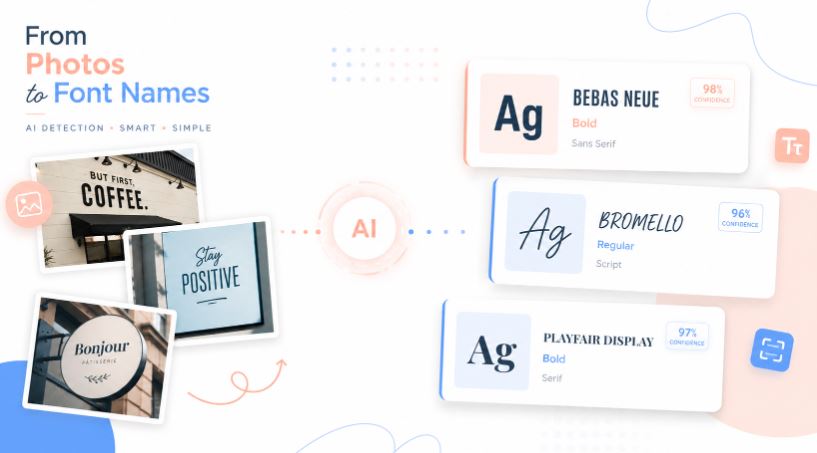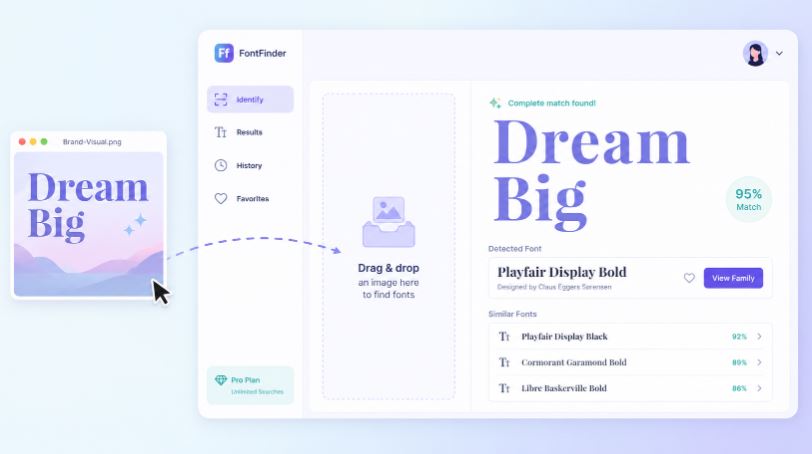
Find a Font With a Picture: The Smarter Way to Identify Fonts
Find a font with a picture instantly using AI image recognition. Upload any image and identify fonts without guessing.
If you want to find a font with a picture, the fastest method is to upload the image into an AI-powered font recognition tool like Find Font AI. The system scans the lettering, analyzes shapes, spacing, and typography patterns, then matches the closest font in seconds.
It removes the guesswork from font identification, especially when the original font name is unknown.
There is a strangely specific frustration that designers, marketers, and even casual internet users all seem to share.
You see a font somewhere, maybe on a movie poster, a café sign, a luxury skincare label, or an old screenshot buried in your camera roll, and suddenly your brain refuses to let it go.
Not because it is important.
Because it feels unfinished.
You start zooming into pixels like a detective in a low-budget crime show. You search “bold elegant serif font.” Then “modern luxury typography.” Then “fonts that look like Vogue but softer.” Hours disappear. Nothing matches.
The weird part is that fonts carry emotion before they carry words. A typeface can make something feel expensive, nostalgic, futuristic, chaotic, trustworthy, or strangely comforting before you even read the sentence itself.
That is exactly why people search for ways to find a font with a picture.
Not everyone knows typography terminology. Most people cannot identify fonts by name. They only know how something felt when they saw it.
And honestly, that changes everything.
Instead of forcing users to describe a font they cannot explain, tools like Find Font AI reverse the process. You upload the image first. The system does the visual interpretation for you.
It feels less like searching.
More like recognition.
Why People Need to Find a Font With a Picture
Sometimes the problem is practical.
A business owner wants to recreate branding from an old banner. A YouTuber wants consistent thumbnail typography. A designer inherits a client file with missing font information. Someone restoring vintage packaging wants the closest modern equivalent.
But often, the motivation is emotional.
Typography sticks to memory in subtle ways. Certain fonts remind people of old magazines, childhood books, retro advertisements, or specific internet eras. Humans remember visual rhythm even when they forget names.
That is why visual font identification has become more important than text-based searching.
Typing “clean handwritten font” into a search bar produces endless noise. Uploading the actual image gives context immediately.
According to Find Font AI, image-based font recognition works by analyzing letter structure, spacing, curvature, stroke contrast, and visual patterns from uploaded images.
That process sounds technical. But the experience feels surprisingly human.
You show the tool what you saw.
It helps you recognize it.
How AI Font Recognition Actually Works
Most people imagine font recognition as a simple visual search.
It is more layered than that.
When you upload an image into Find Font AI, the system does not just “look” at words the way humans do. It breaks typography into measurable structures.
Character Shape Analysis
Every font has microscopic personality traits.
Some letters have sharp terminals. Others curve softly. Some fonts compress spacing aggressively. Others breathe with wide kerning.
The AI examines:
• Letter proportions
• Stroke thickness
• Edge curvature
• Baseline alignment
• Character spacing
• Serif and sans-serif structures
A lowercase “a” alone can eliminate thousands of font possibilities.
That sounds excessive until you realize humans subconsciously notice these differences too.
Typography is visual fingerprinting.
Image Cleanup Before Detection
Real-world images are messy.
Fonts are rarely captured perfectly. Screenshots blur. Posters bend. Lighting changes contrast. Old images become grainy.
Modern font recognition tools compensate for this by isolating text from the surrounding image before analysis begins.
That preprocessing stage matters more than people think.
A clean extraction often determines whether the result feels accurate or completely random.
Pattern Matching Across Font Libraries
After analyzing the typography structure, the AI compares the detected patterns against a massive font database.
Not every match is exact.
And that is important to understand.
Sometimes the goal is not perfect identification. Sometimes the closest stylistic match is more valuable than the original font itself.
Designers often discover better alternatives during the process.
Accidents become inspiration.
• AI font recognition works by analyzing letter structure and visual patterns.
• Clear, high-contrast images dramatically improve font detection accuracy.
• Typography influences emotion, trust, branding, and visual memory.
• Find Font AI simplifies font identification through image uploads instead of manual searching.
• Designers increasingly rely on AI-assisted typography recognition for faster workflows.
• Visual search is becoming the future of creative discovery online.